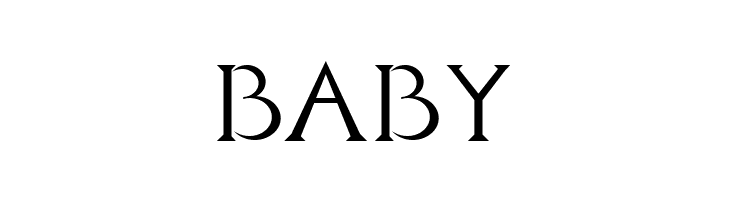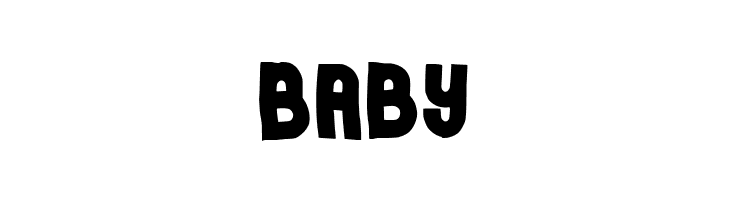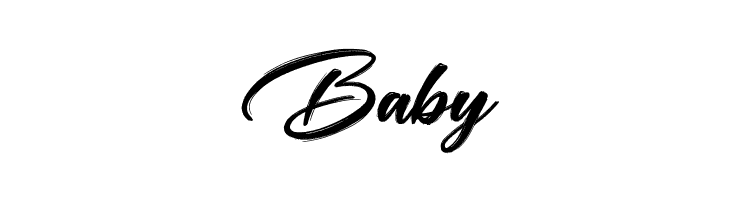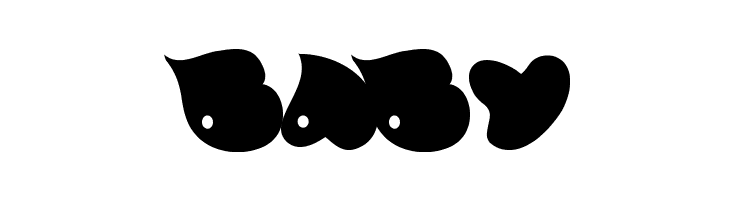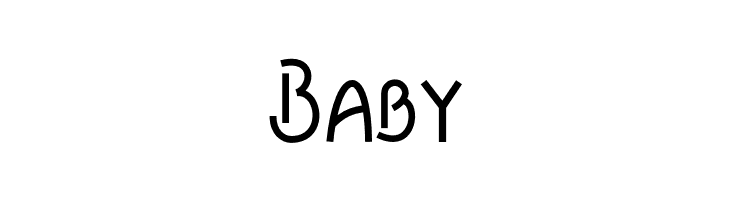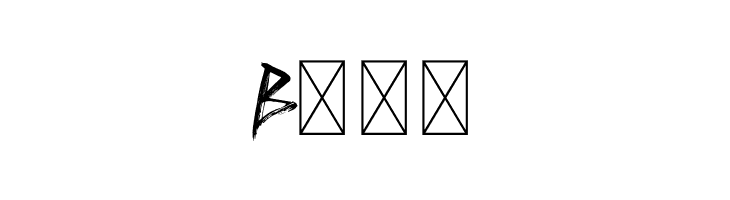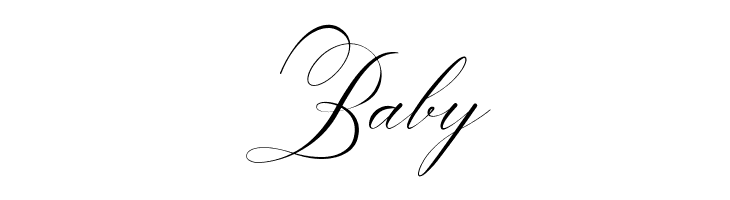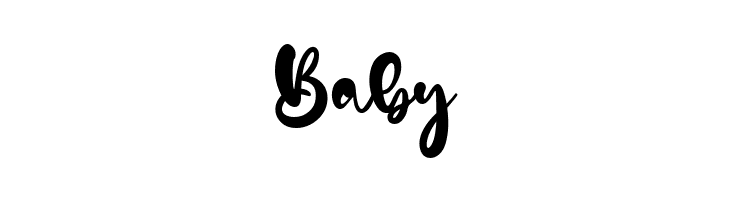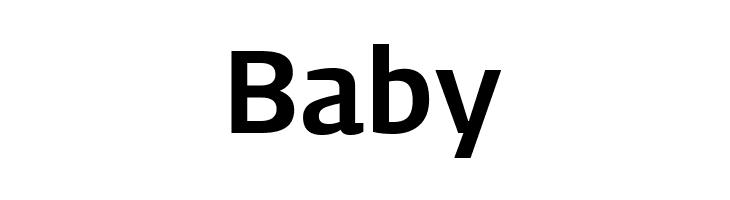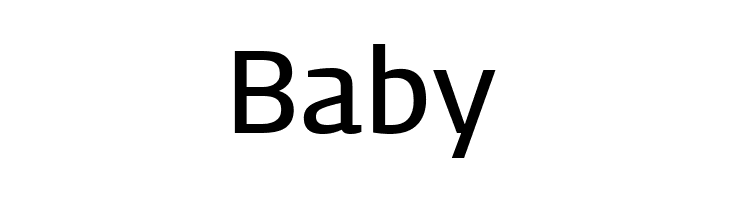
A classic serif font with elegant, sharp serifs and balanced proportions.
A bold, brush-style font with an expressive, hand-painted look.
A classic, elegant script font with flowing cursive letterforms.
A dot-patterned font with a modern, digital display style.
A modern, geometric sans-serif typeface with clean lines and uniform strokes.
A modern, semi-bold sans-serif font with clean lines and excellent readability.
A casual, handwritten font with a playful and approachable style.
A bold, angular font with a runic, tribal aesthetic and distressed texture.
A bold, angular font with a medieval, runic style.
A bold, italicized font with sharp, angular edges and a futuristic look.
A bold, geometric font with a futuristic, digital aesthetic.
A bold, playful font with rounded, hand-drawn characters.
A playful, bold font with a bubbly, cartoonish style.
An elegant script font with intricate swashes and flowing letterforms.
A bold, dynamic font with a slight slant and smooth curves, ideal for impactful headlines.
A bold, dynamic font with a modern and energetic style.
A bold, dynamic brush script font with expressive strokes.
A bold, brush-style font with dynamic and expressive strokes.
A playful, dynamic handwritten font with bold, irregular strokes.
A playful, dynamic handwritten font with expressive strokes and a lively aesthetic.
A playful and energetic script font with bold, flowing strokes.
A decorative font with vintage and modern influences, featuring playful curves and artistic flair.
A bold, brush-style font with dynamic, hand-painted strokes.
An artistic font with flowing, calligraphic strokes.
A playful, handwritten font with smooth, rounded edges and a casual style.
A dynamic, brush-like font with jagged strokes and a hand-drawn feel.
A modern, geometric font with clean lines and a futuristic aesthetic.
A modern, geometric font with clean lines and a minimalist aesthetic.
A modern, geometric font with clean lines and a minimalist design.
A modern, geometric font with bold, clean lines and a futuristic aesthetic.
A modern, geometric font with clean lines and a minimalist style.